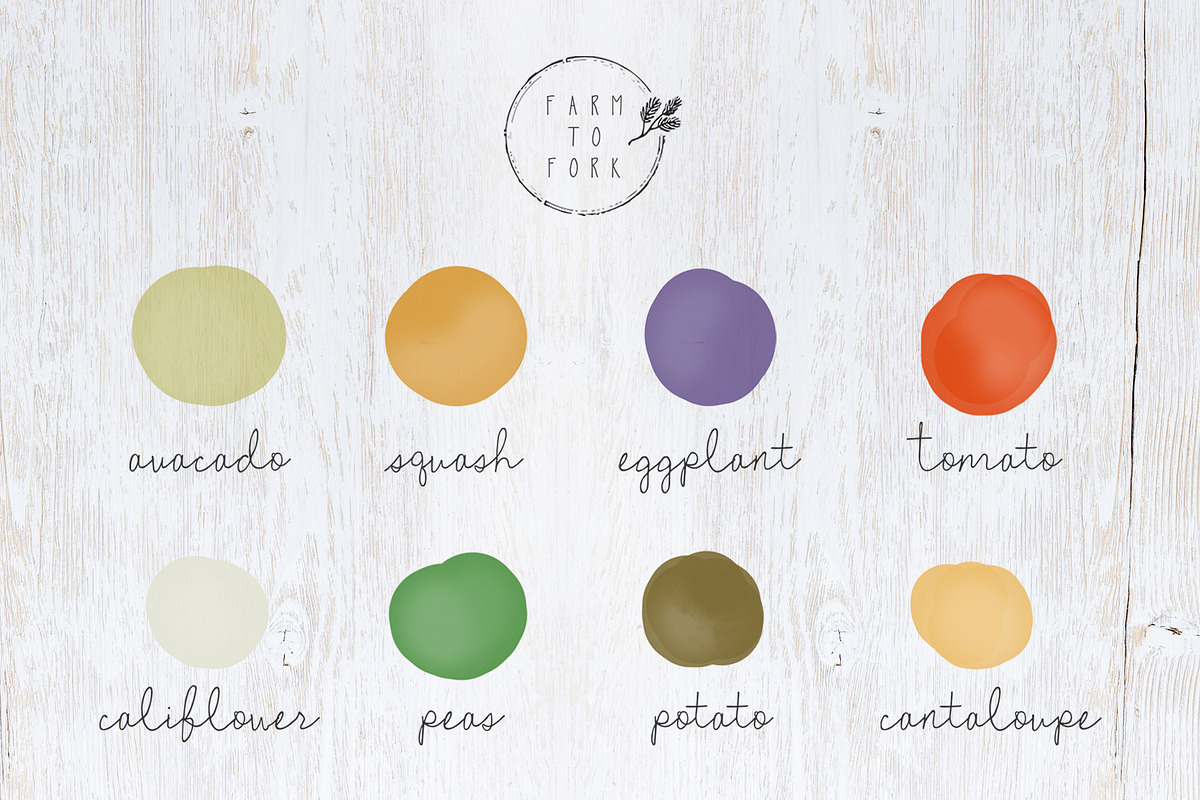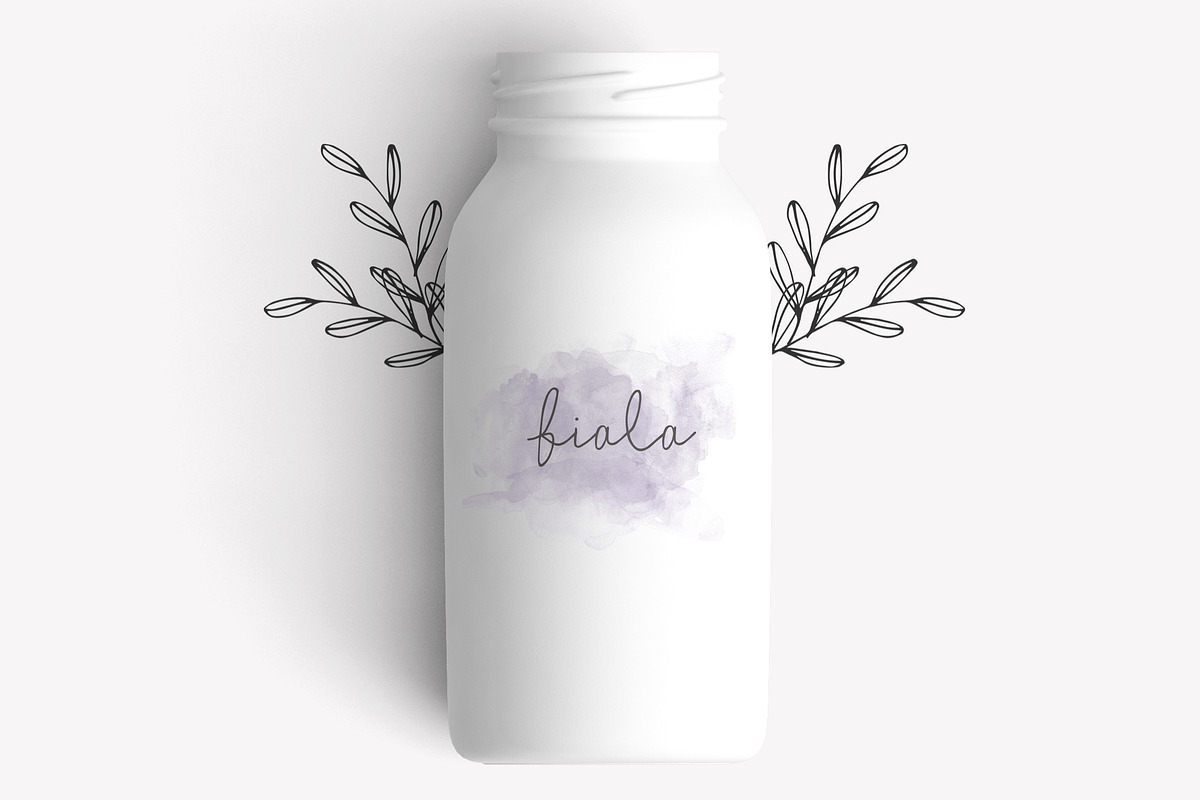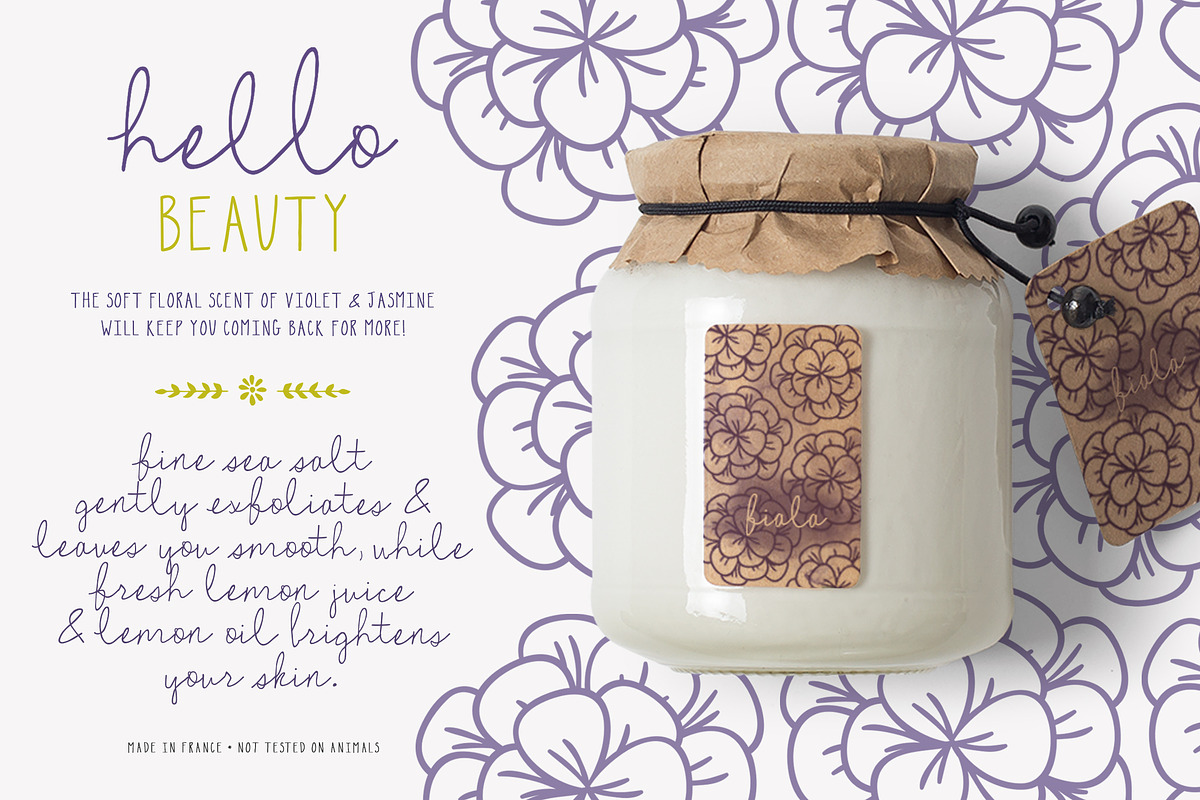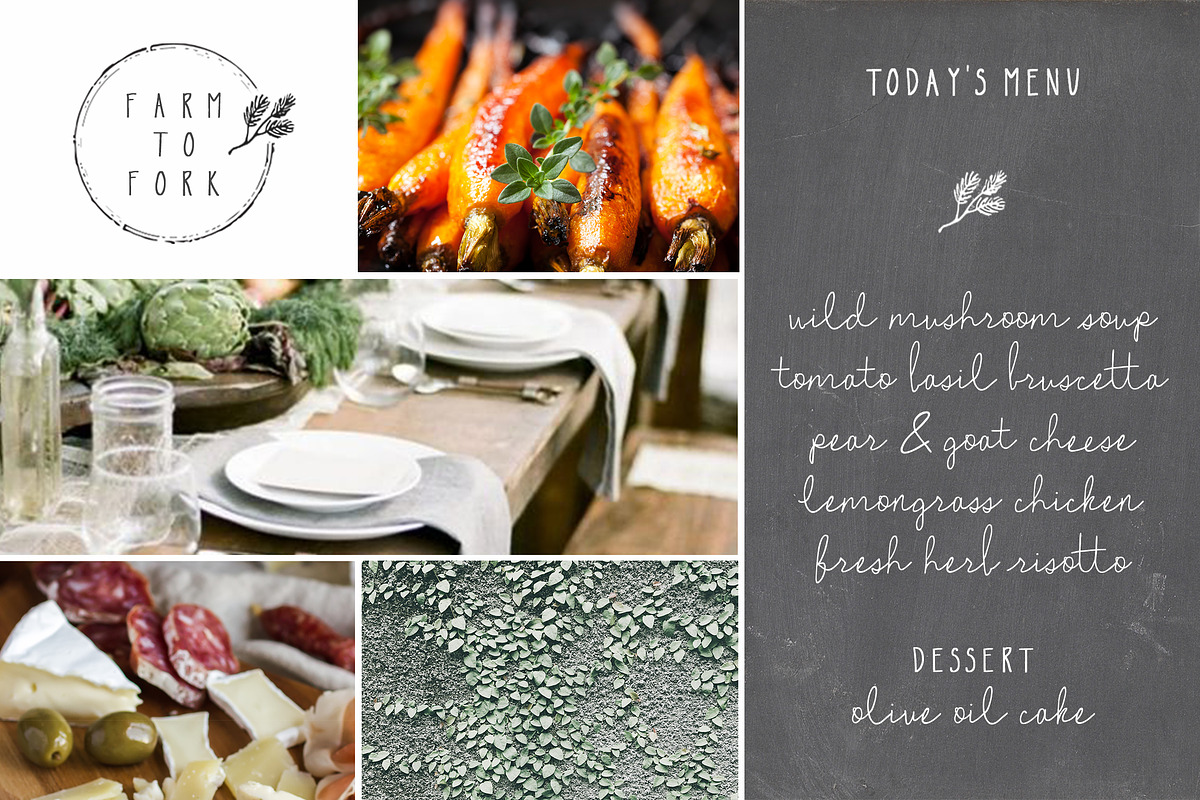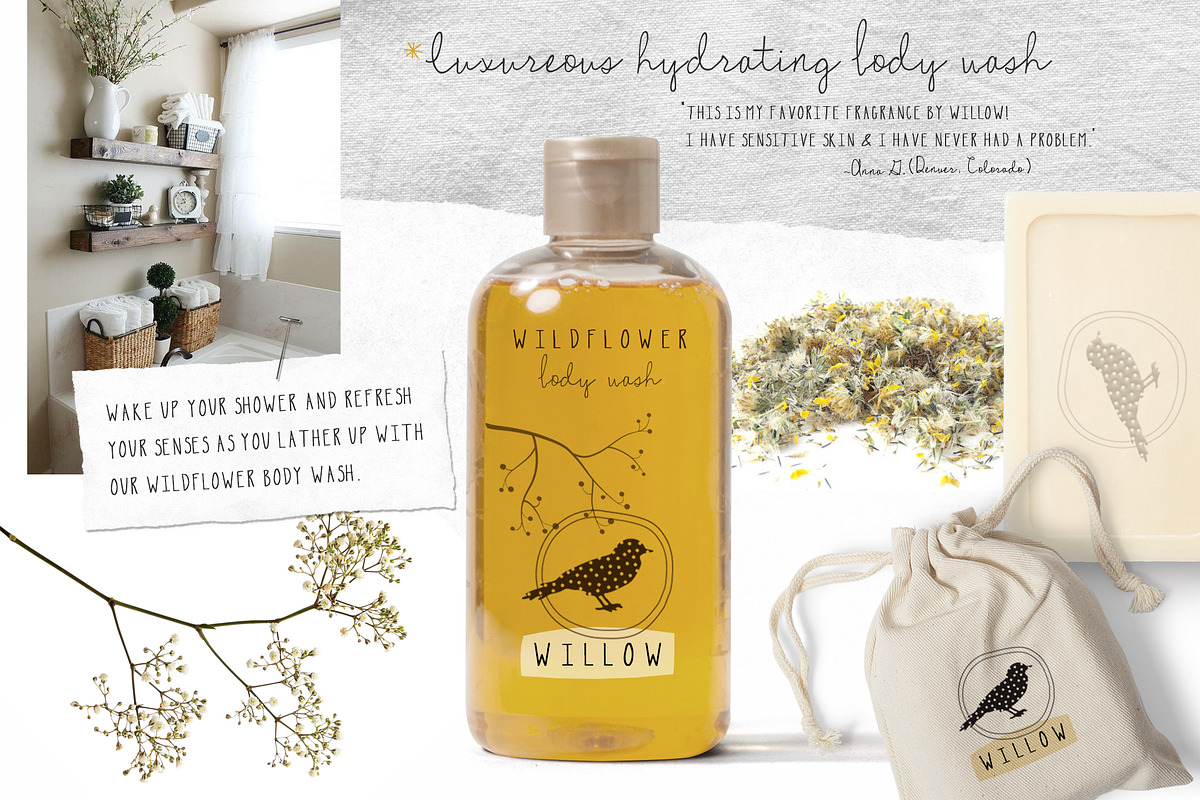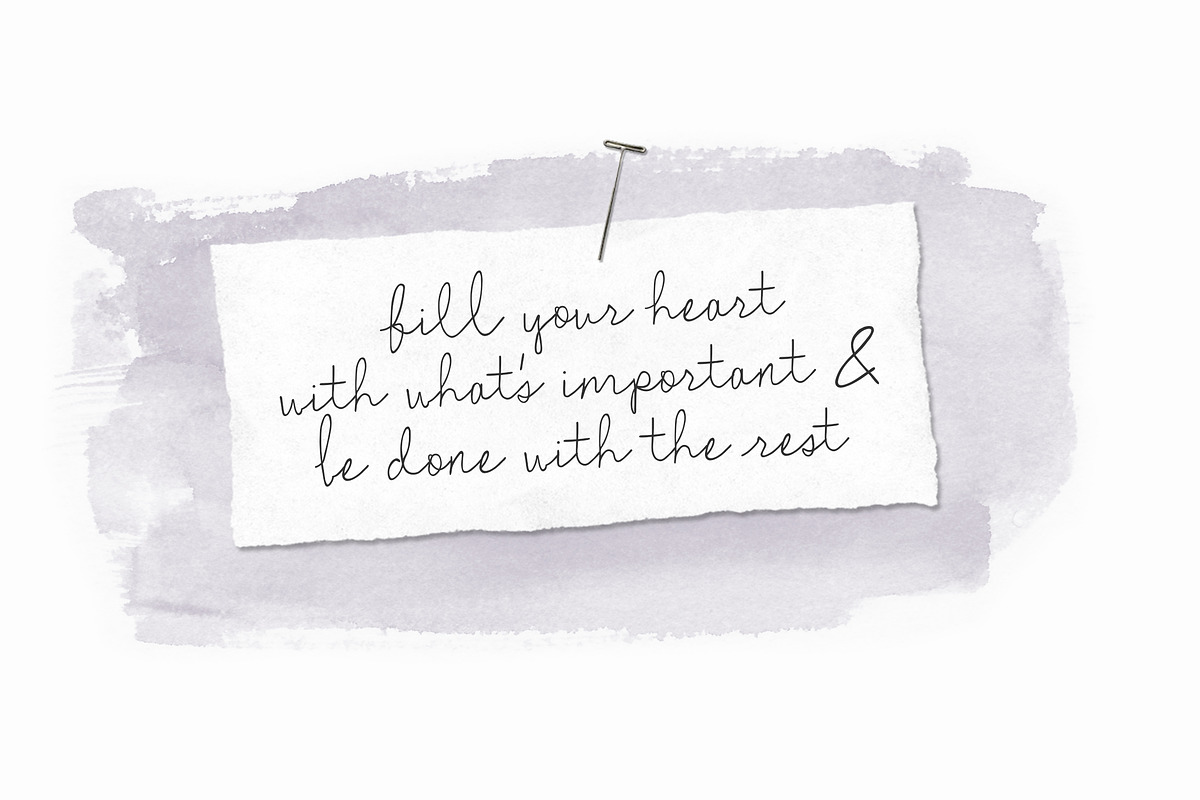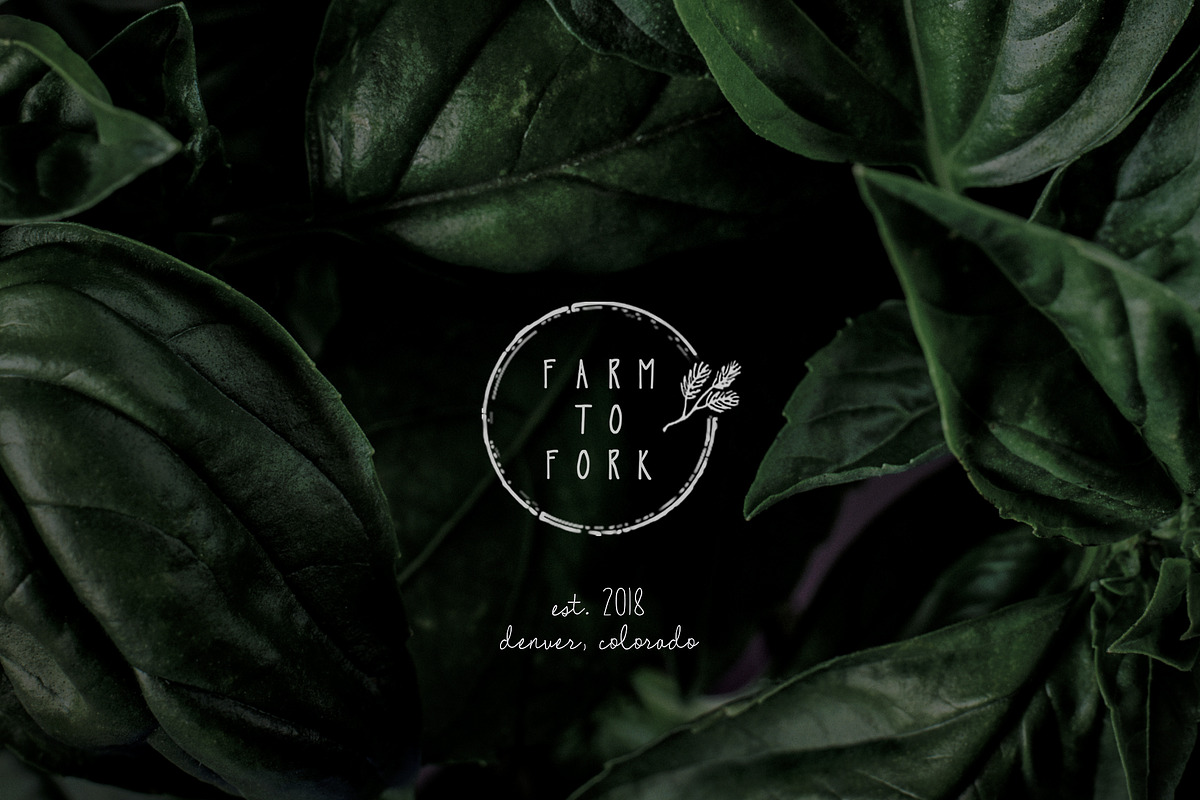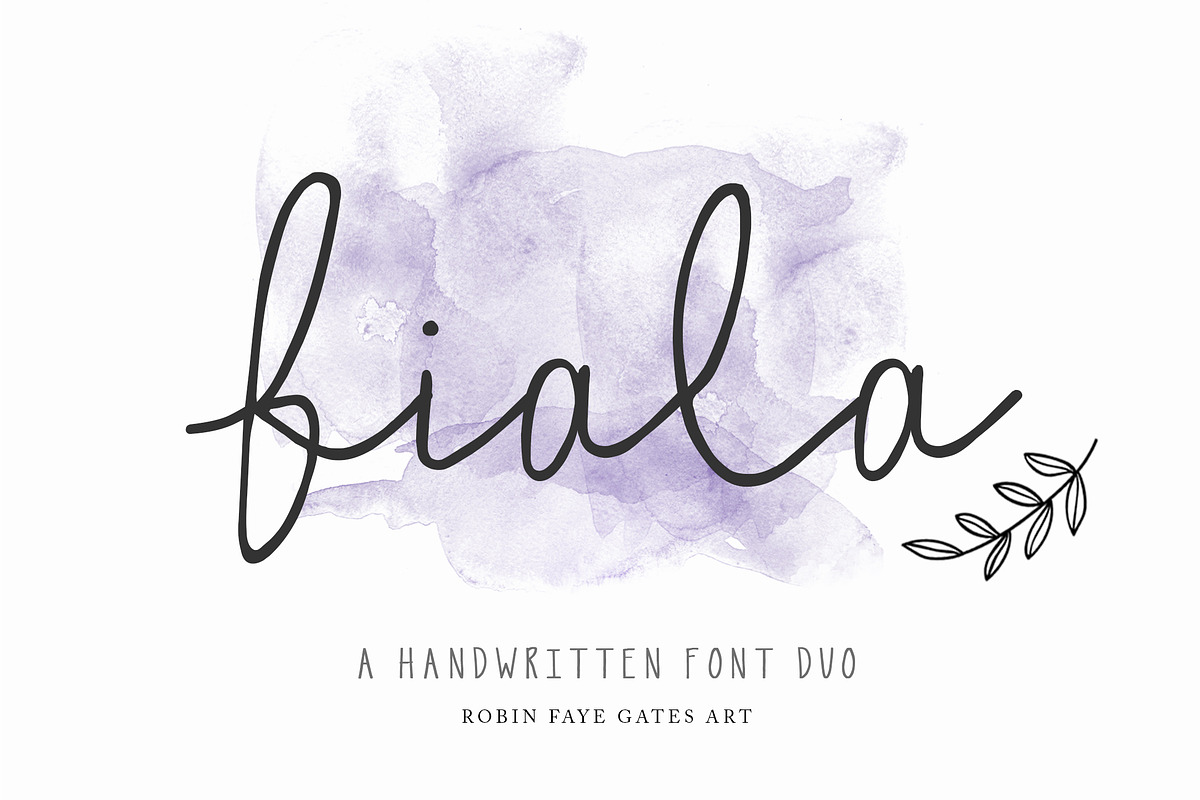
Fiala // A Handwritten Font Duo
Introducing Fiala! (meaning violet in Czech)
Fiala is a handwritten signature font, with a bonus All Caps font, that pairs perfectly with it! Use it for branding design, magazines, Instagram quotes, advertisements and more.
Language Support is included for Western European languages.